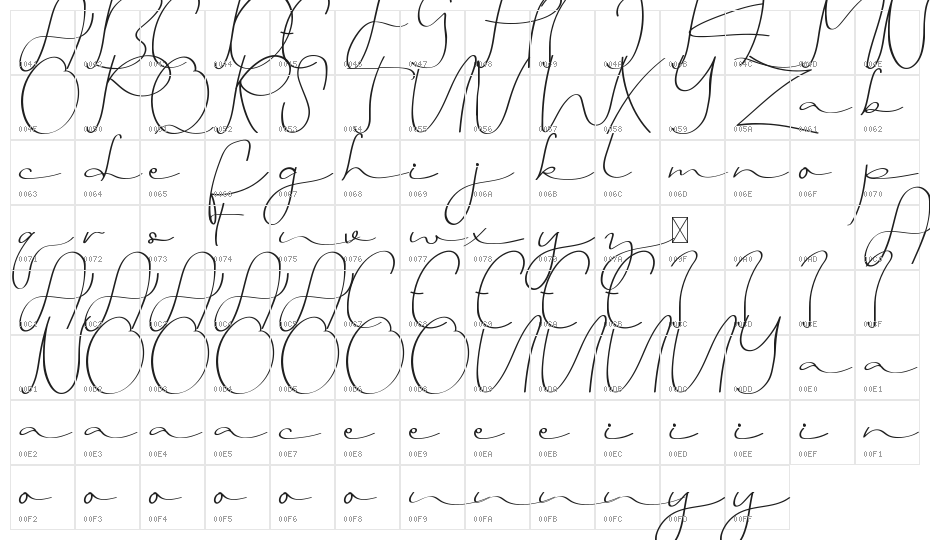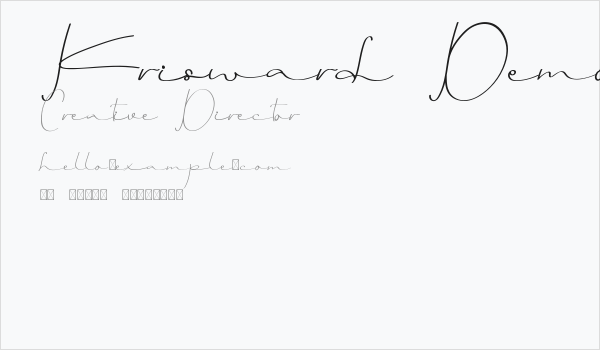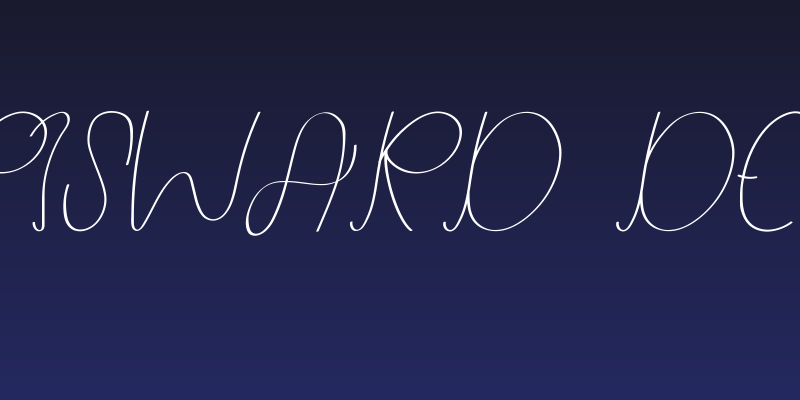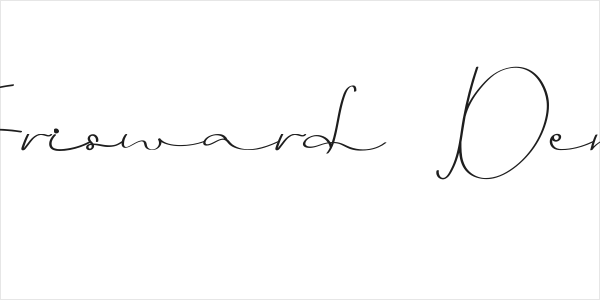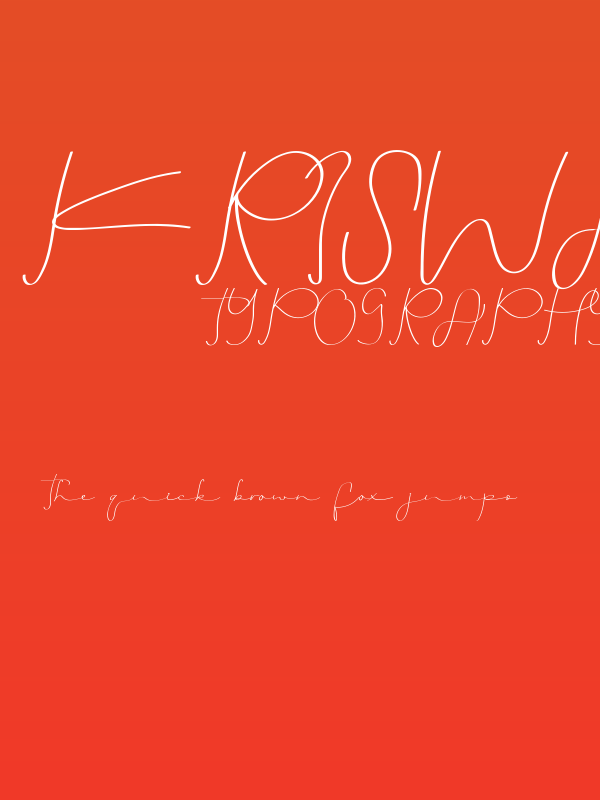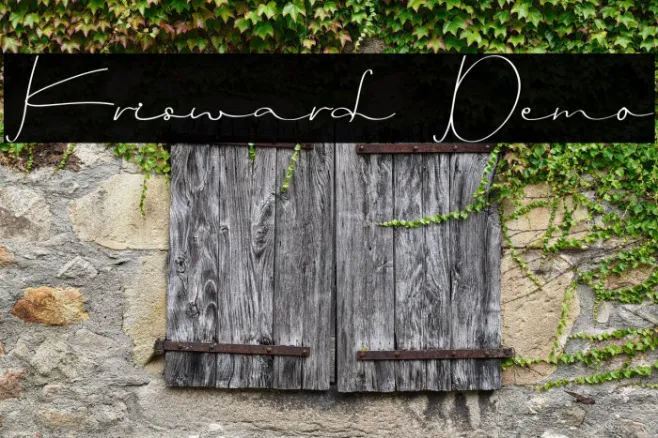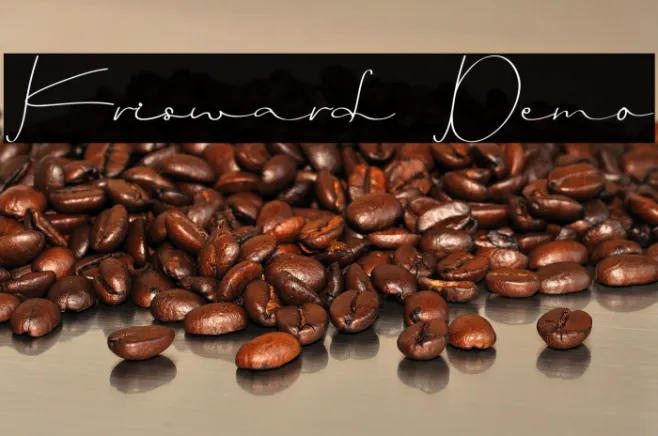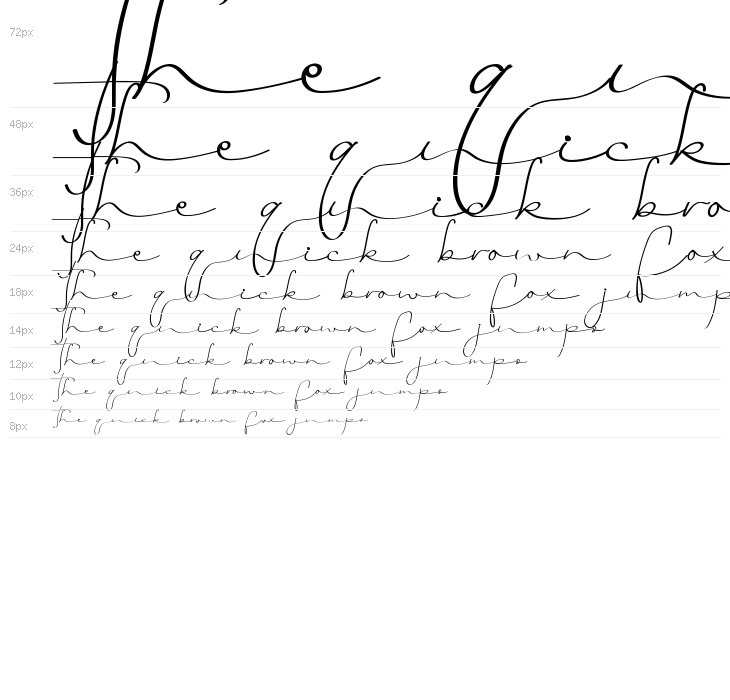
Krisward Demo Font
Krisward Demo Description
This font features an elegant, flowing script style with a handwritten appearance. The characters are connected with smooth, continuous strokes, giving it a fluid and graceful look. The uppercase letters are slightly more elaborate, with loops and curves that add a touch of sophistication. The lowercase letters maintain a consistent style, with some letters extending below the baseline, enhancing its cursive nature. The overall design is delicate and airy, making it suitable for projects that require a personal or artistic touch. The thin lines and gentle curves create a sense of movement and elegance.
| Overall Style | Elegant, Artistic |
| Proposed Projects | Ideal for wedding invitations, greeting cards, personal branding, and artistic projects. |